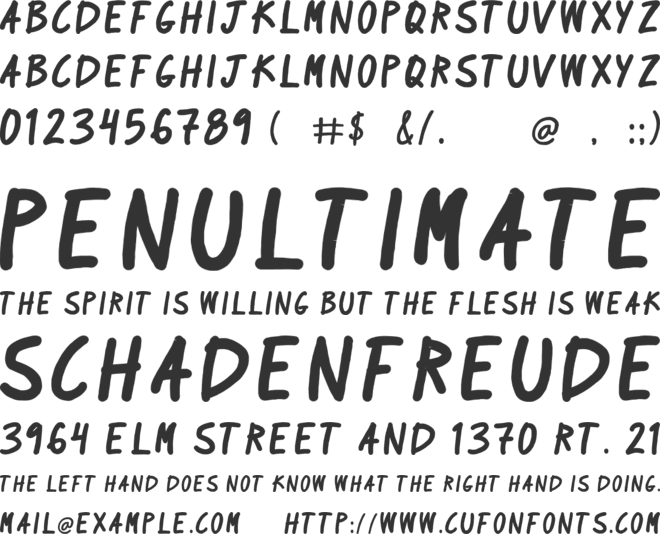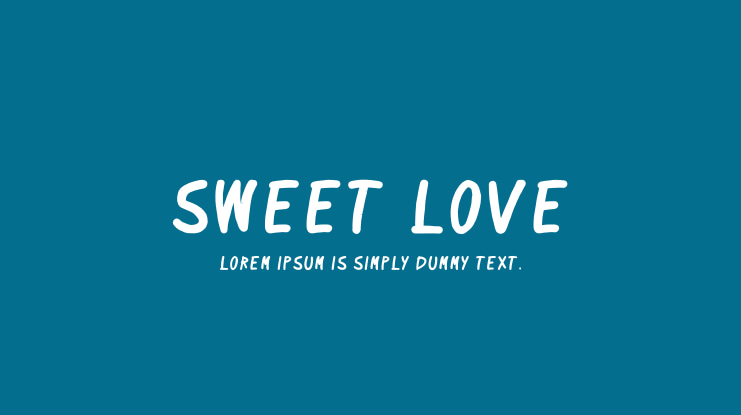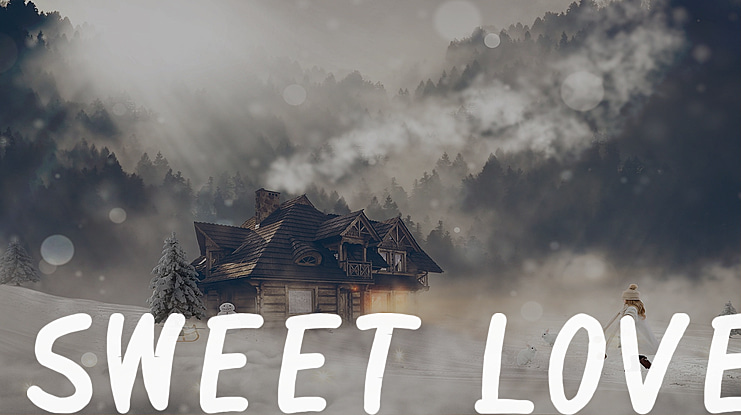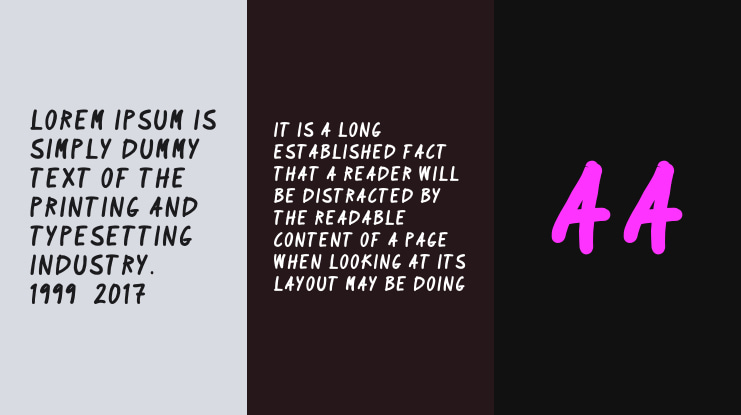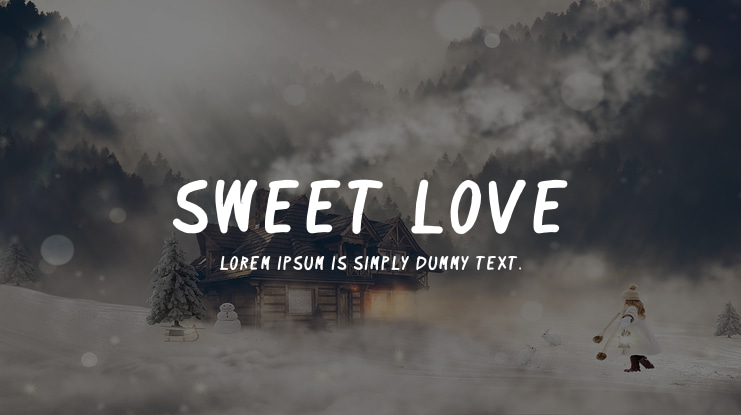
Sweet Love Font
Sweet Love Handwriting Font – new handwritten comic font with cute and unique look. It's ideal for quotes, posters, branding, packaging, illustration, social media.-------------------------------------------------------------------------By installing or using this font, you are agree to the Product Usage Agreement:- This font is ONLY for PERSONAL USE. NO COMMERCIAL USE ALLOWED!- Here is the link to purchase commercial license:https://creativefinest.com/- For Corporate use you have to purchase Corporate license- If you need a custom license please contact us atPlease visit our store for more amazing fonts :https://creativefinest.comFollow our website for update : https://creativefinest.comThank you.